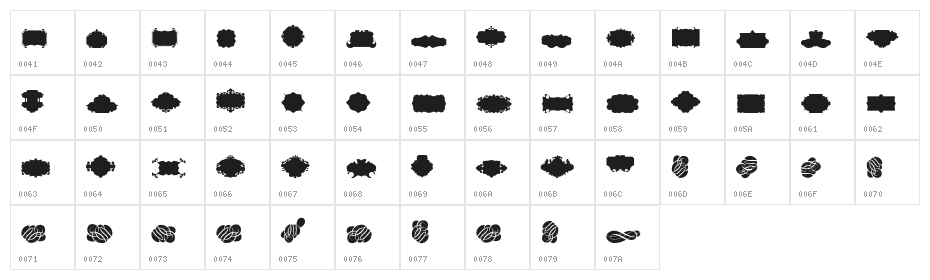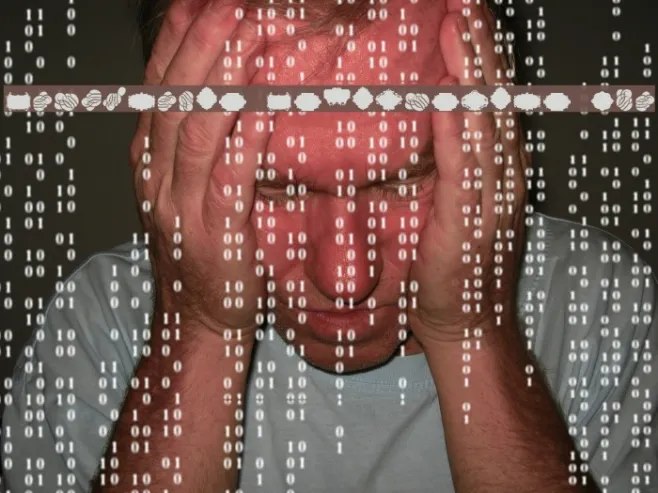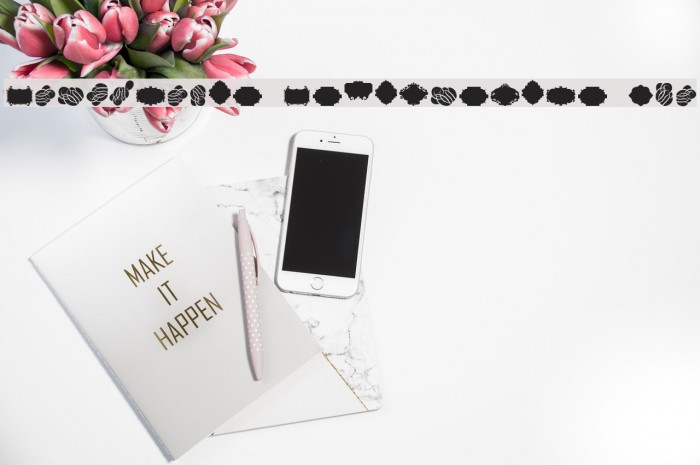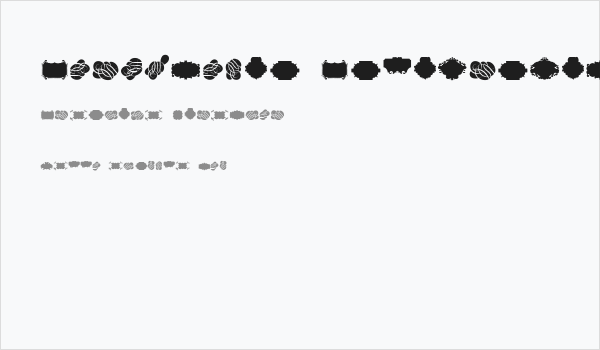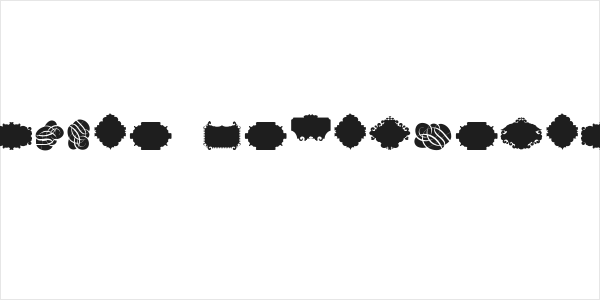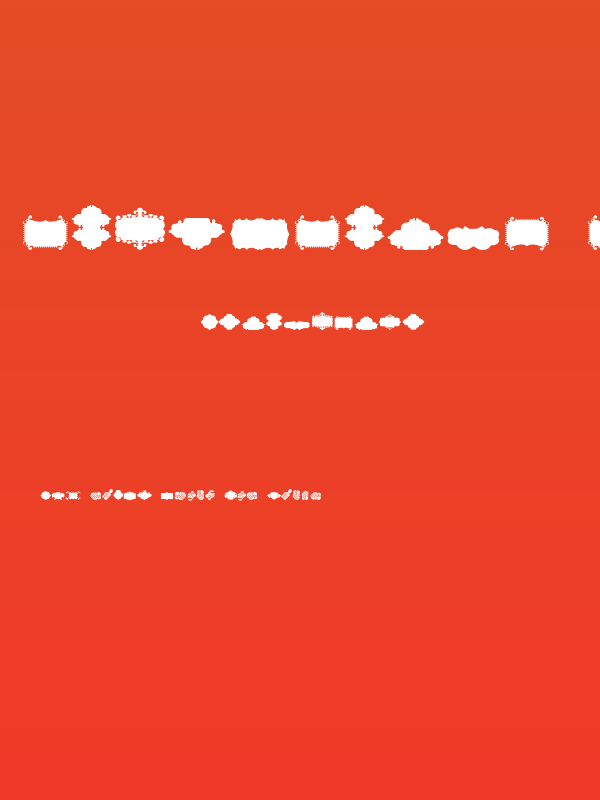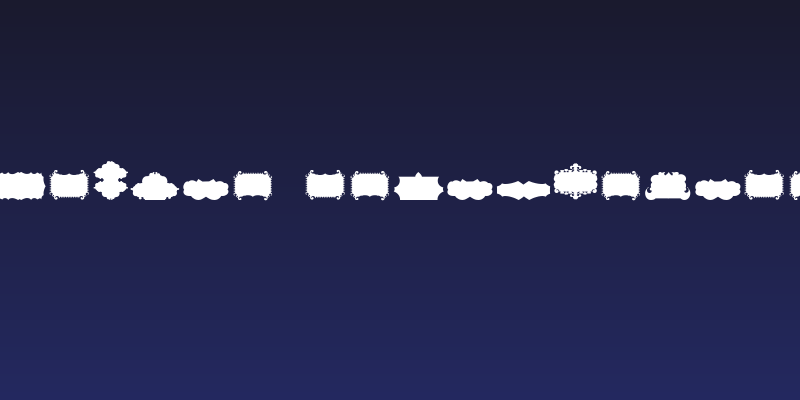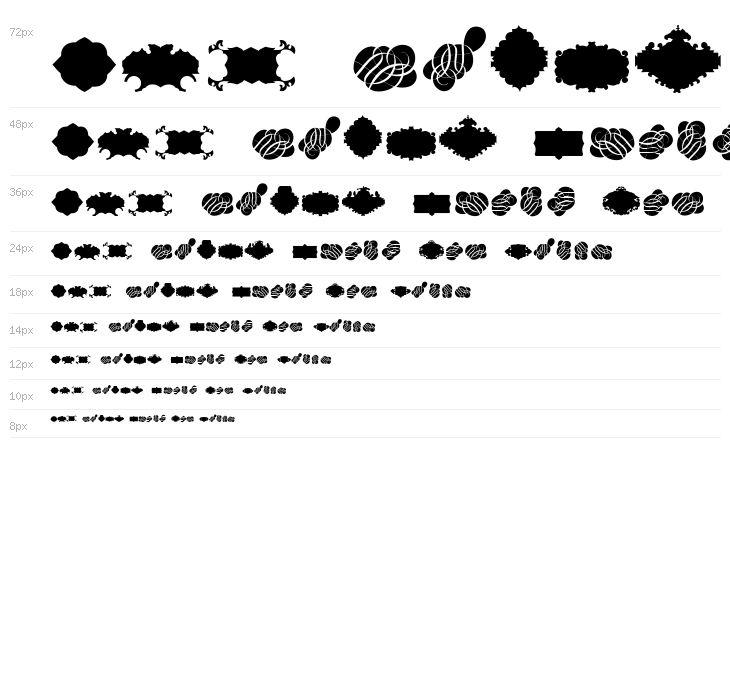
Cornucopia Caligrafica Two Font
Cornucopia Caligrafica Two Description
This font is a highly decorative and ornate typeface, characterized by intricate and elaborate shapes that resemble calligraphic flourishes and ornamental motifs. Each character is uniquely designed with a high level of detail, making it suitable for artistic and creative projects. The font's style is reminiscent of vintage calligraphy, with a modern twist that incorporates bold and complex patterns. It is not suitable for body text due to its complexity but can be effectively used for decorative purposes where a strong visual impact is desired.
| Use Case | Logos, Decorative headings |
| Proposed Projects | Ideal for wedding invitations, greeting cards, logos, and decorative headings. |